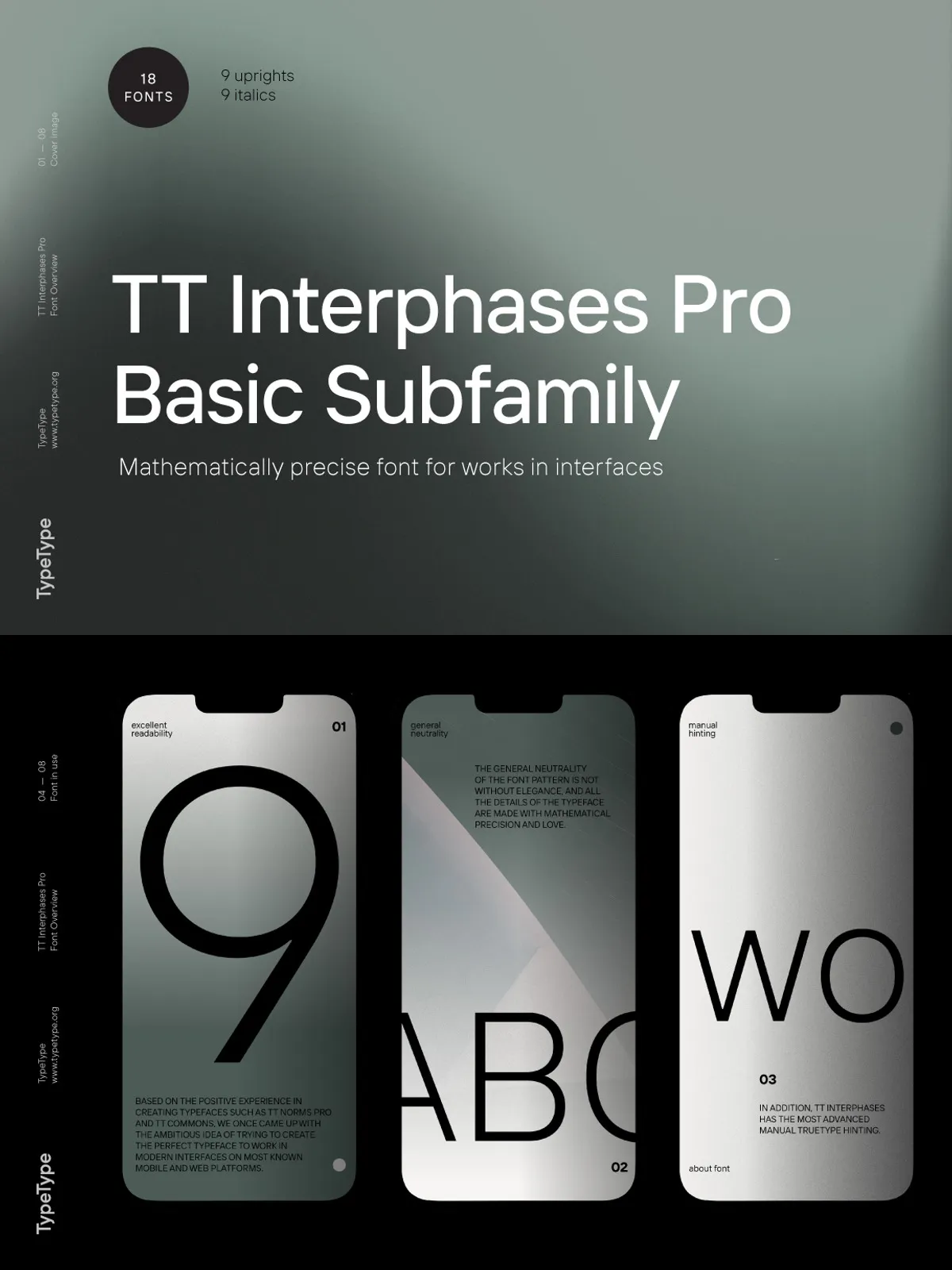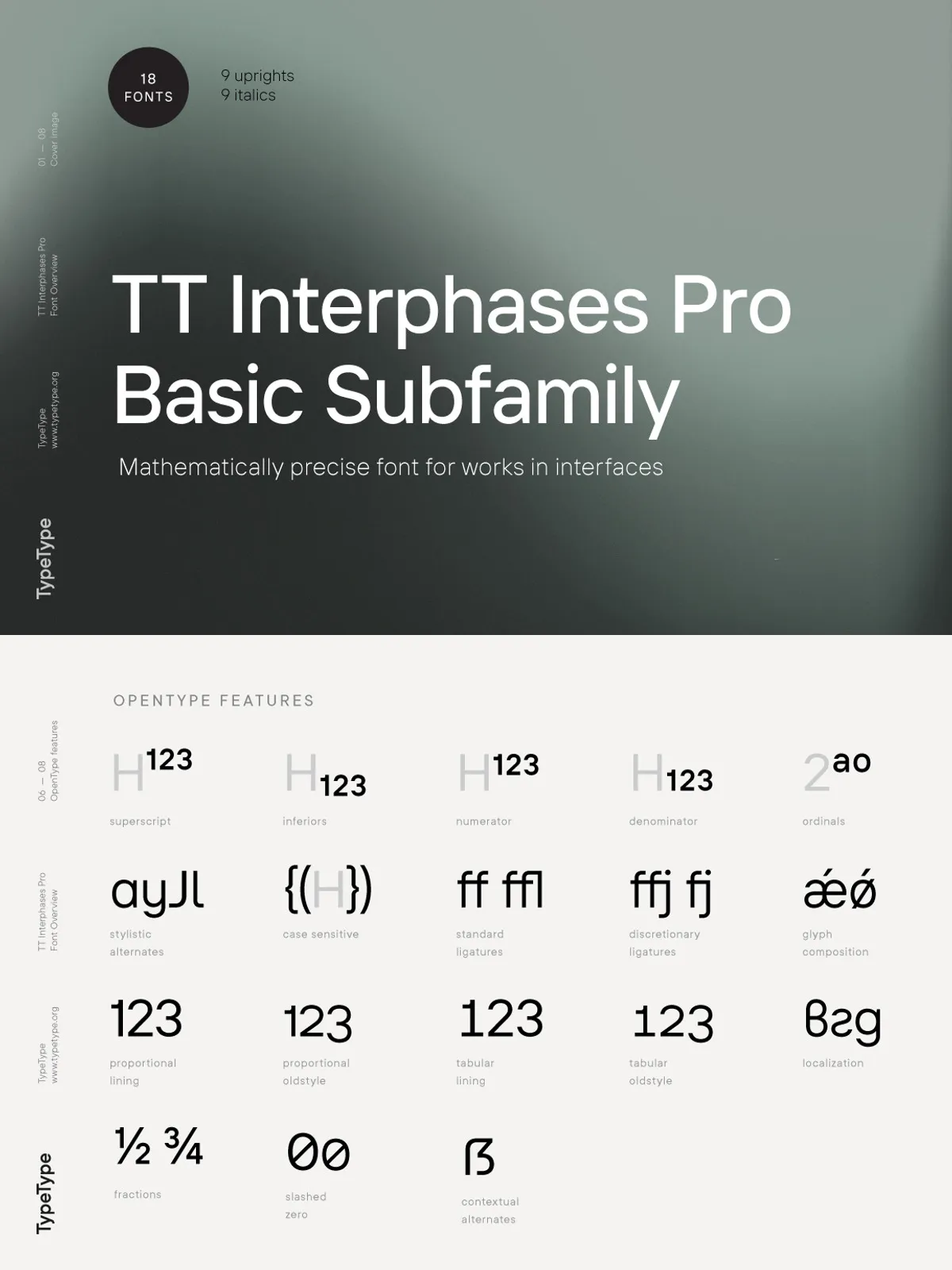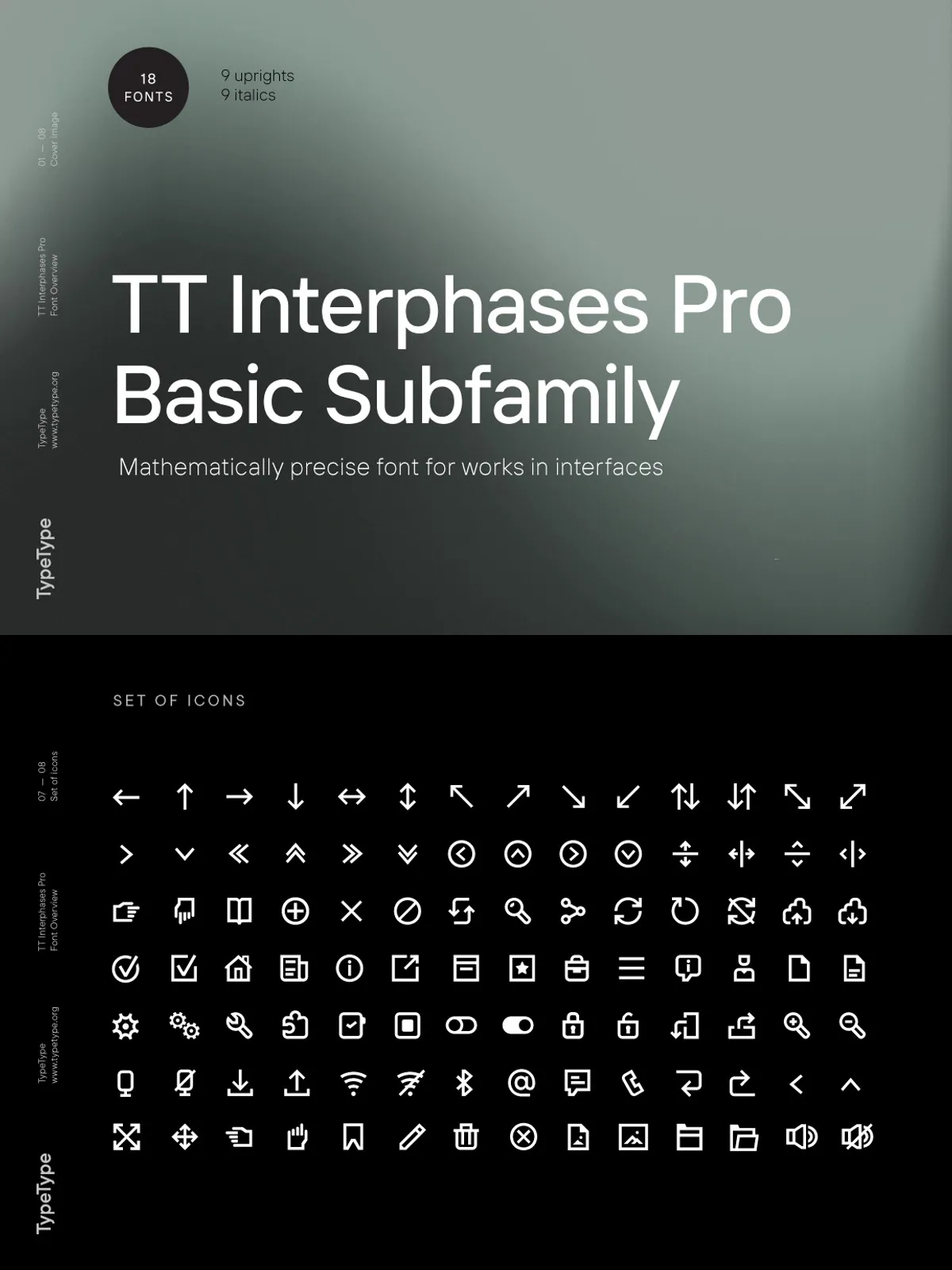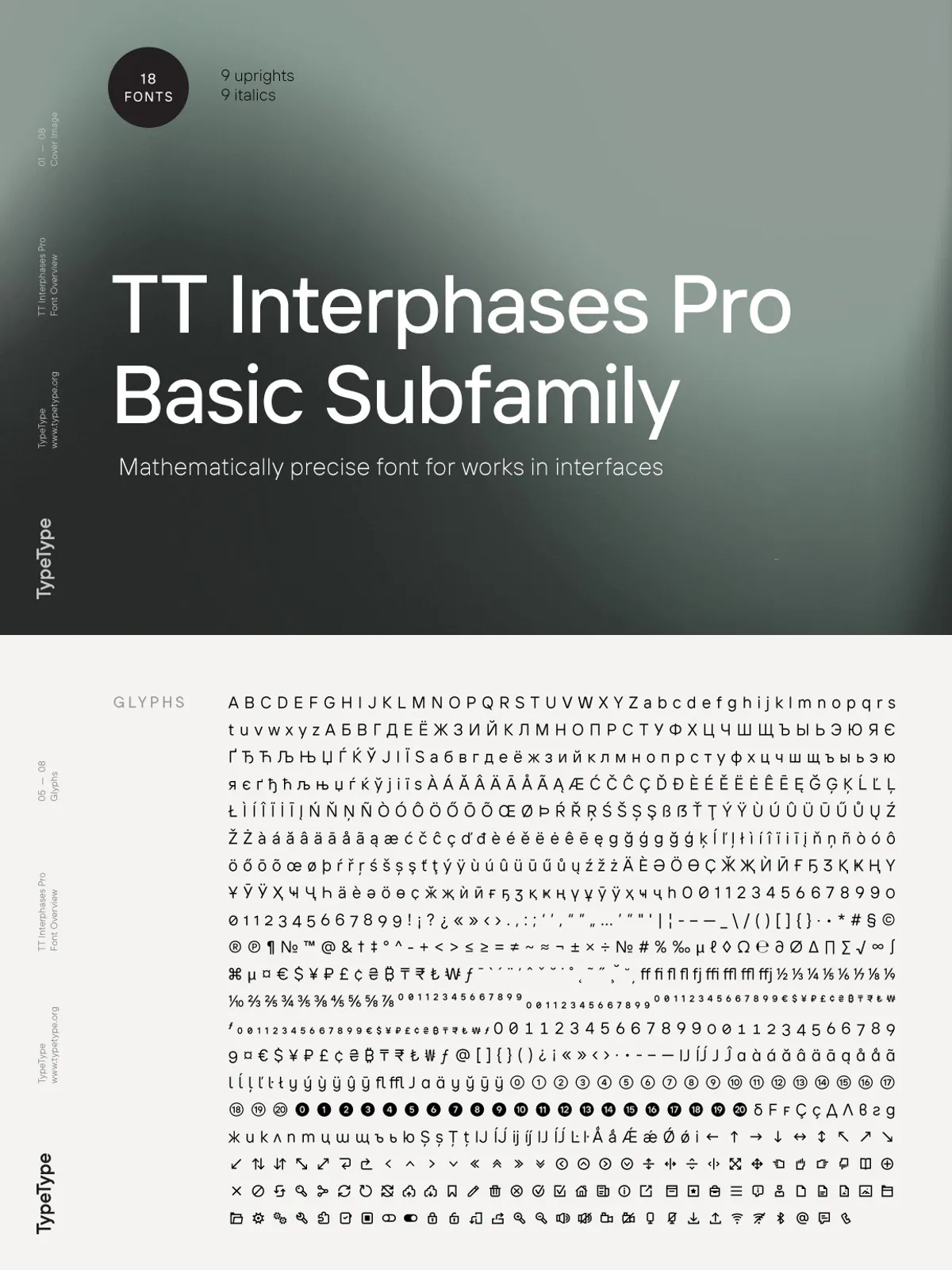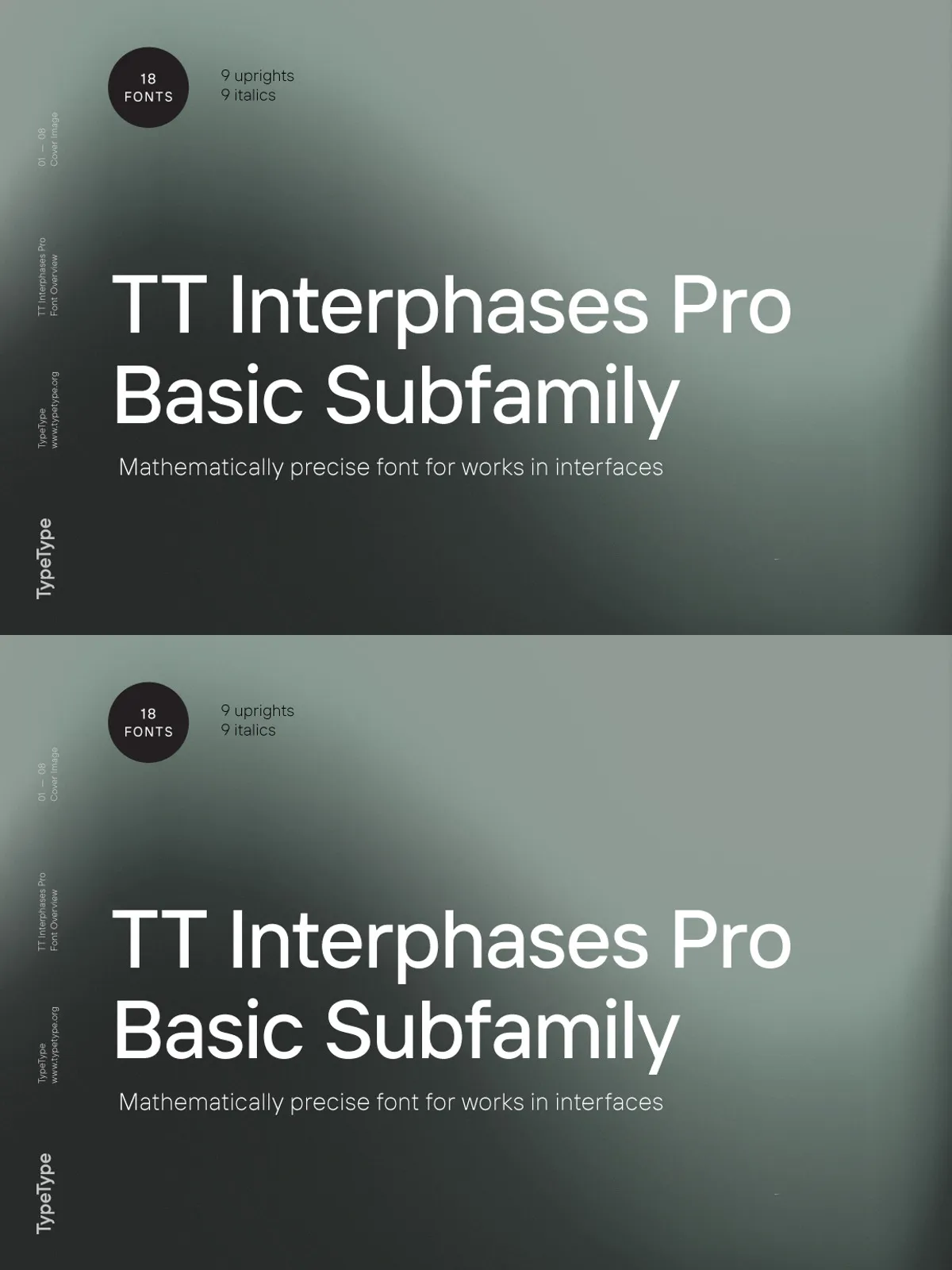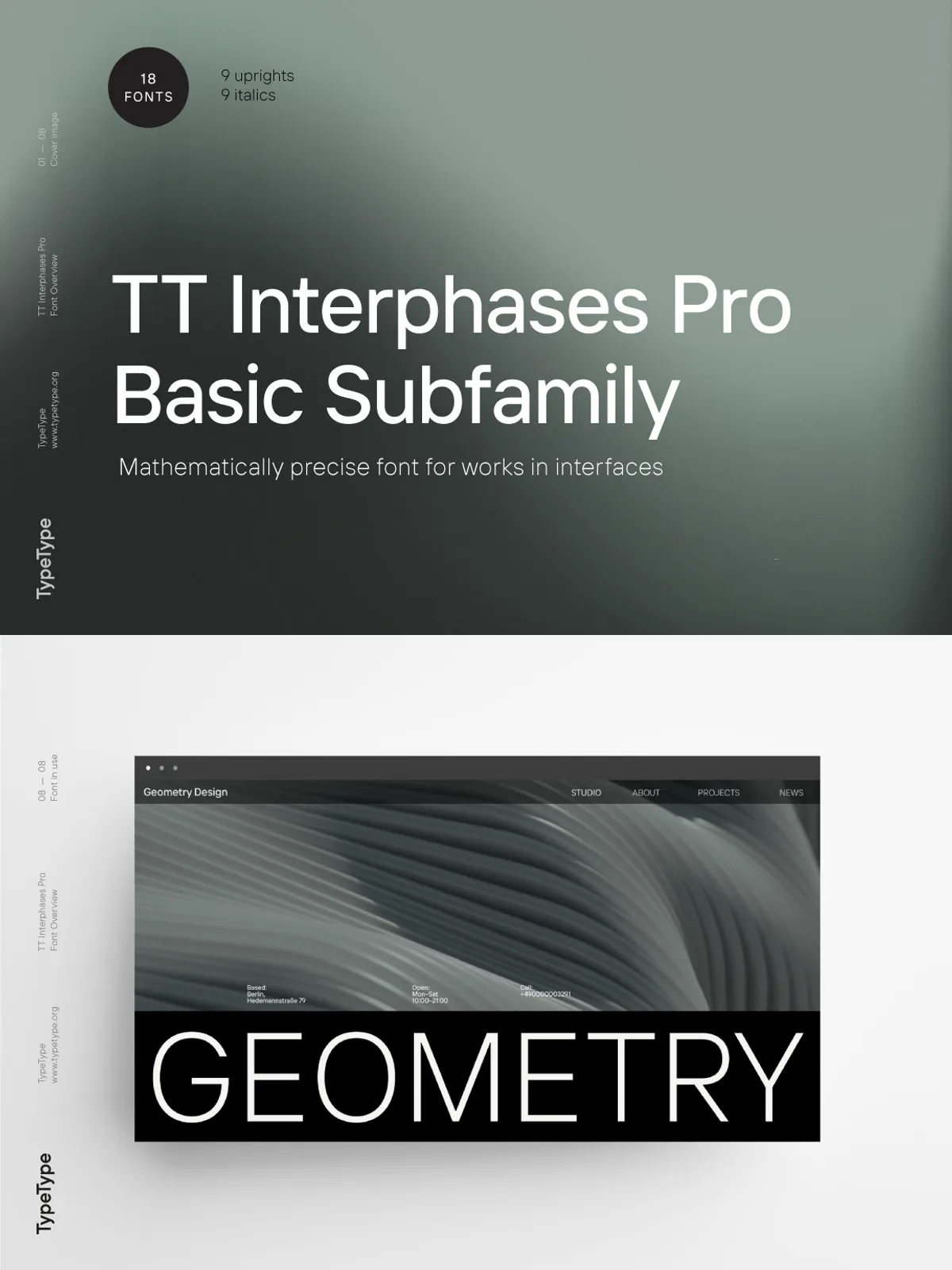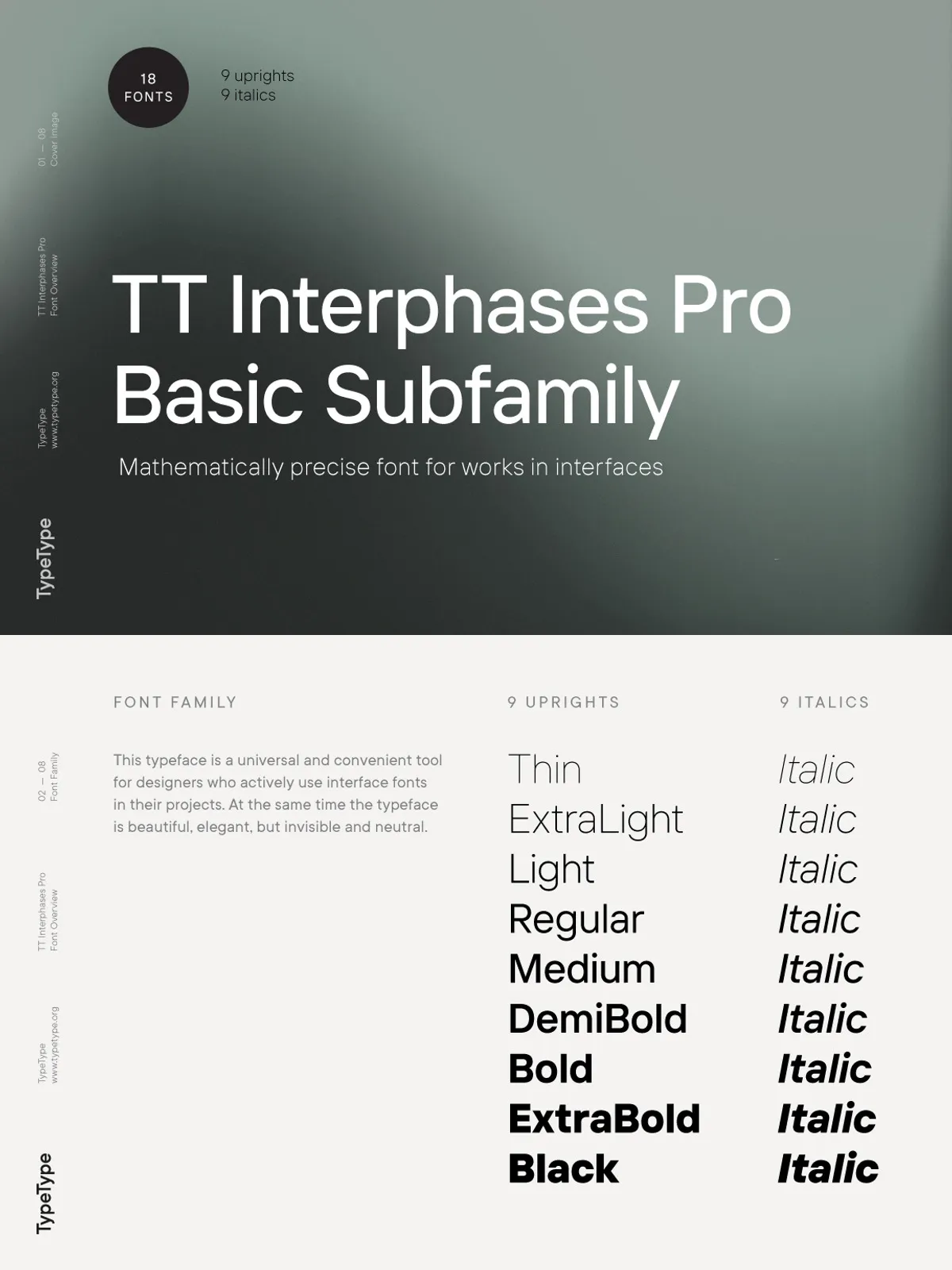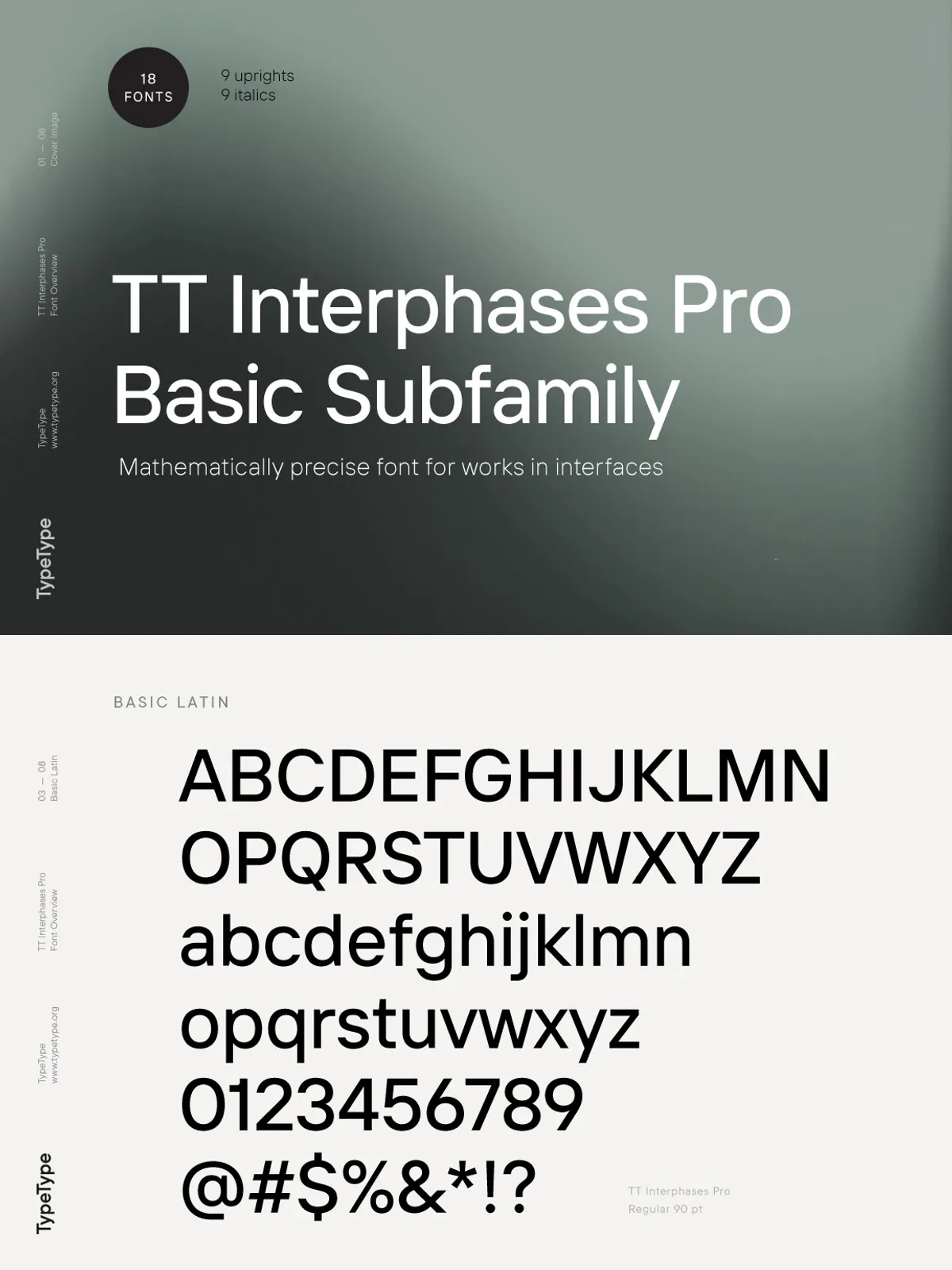
TT Interphases Pro isn’t just an update — it’s a transformation. Designed for creators who demand excellence in digital environments, this next-generation font builds on the proven success of TT Interphases, elevating every aspect of functionality, aesthetics, and technical performance. Whether you’re crafting intuitive mobile apps, sleek web dashboards, or dynamic digital experiences, TT Interphases Pro delivers unmatched clarity, consistency, and visual harmony.
Redefining Form and Function from the Ground Up
Every contour has been recalibrated for perfection
We didn’t merely tweak the original TT Interphases — we reassembled it. Every glyph has been re-engineered with precision. Stroke weight, rounding, spacing, and alignment have been optimized to ensure maximum legibility across all screen sizes and resolutions. The result? A cleaner, more balanced typeface that feels seamless whether displayed in small body text or bold UI headlines.
The new character set adds 18 additional styles through the introduction of the **Condensed variant**, giving designers two distinct widths — Normal and Narrow — for greater flexibility in layout design. Whether you’re using wide spacing for elegant headings or tight, condensed text for compact interfaces, TT Interphases Pro adapts flawlessly.
Masterful Technical Advancements for Creative Freedom
Variable design power, openType intelligence, seamless workflow
TT Interphases Pro features a fully variable font version that gives you unprecedented control:
- Stroke weight: Adjust from Thin to Black with smooth transitions.
- Width: Morph from Condensed to Normal instantly.
- Incline angle: Tilt from 0° to 11° for dynamic, expressive effects.
This means one single font file can serve as a full family of 37 styles — reducing asset load time, simplifying version management, and enabling responsive, adaptive typography with ease.
On the technical side, we’ve rebuilt kerning and hinting from scratch. The font now renders crisply on low-resolution screens and scales perfectly across all devices. OpenType features are now more robust, with full support for:
- Tabular and proportional figures
- Numerators, denominators, and currency symbols
- Alternative forms for a, l, y, and other frequently used characters
- Stylistic sets for customized typographic expression
These enhancements ensure consistency and professionalism across every project.
Two Powerful Subfamilies for Diverse Design Needs
Standard sans serif and monospace for every context
The TT Interphases Pro family includes two distinct subfamilies, each tailored for specific use cases:
- Standard (Non-Mono): 18 uprights, 18 italics, and 1 variable font — ideal for UIs, dashboards, and all-purpose text.
- TT Interphases Pro Mono: A sleek, monospace subfamily with 6 weights (2 upright, 2 italics, 2 variable). Its consistent glyph width makes it perfect not just for code, but also for tech branding, data visualizations, and typographic posters.
Both subfamilies share the same refined geometry and high legibility — a true testament to intelligent design across formats.
Designed for the Creative Workflow
Effortless integration into modern design tools
With a comprehensive set of 24 OpenType features and 978 glyphs per style, it supports global content — from English to Western, Central, and Eastern European languages — making it a truly international font.
Make Every Design Decision Count
Elevate your work with a font that speaks with precision and purpose
TT Interphases Pro is more than a typeface. It’s a strategic tool for modern designers. Its balanced neutrality lets your content shine, while its subtle refinement ensures your design stands out. It’s the font of choice for teams that value efficiency, scalability, and visual mastery.